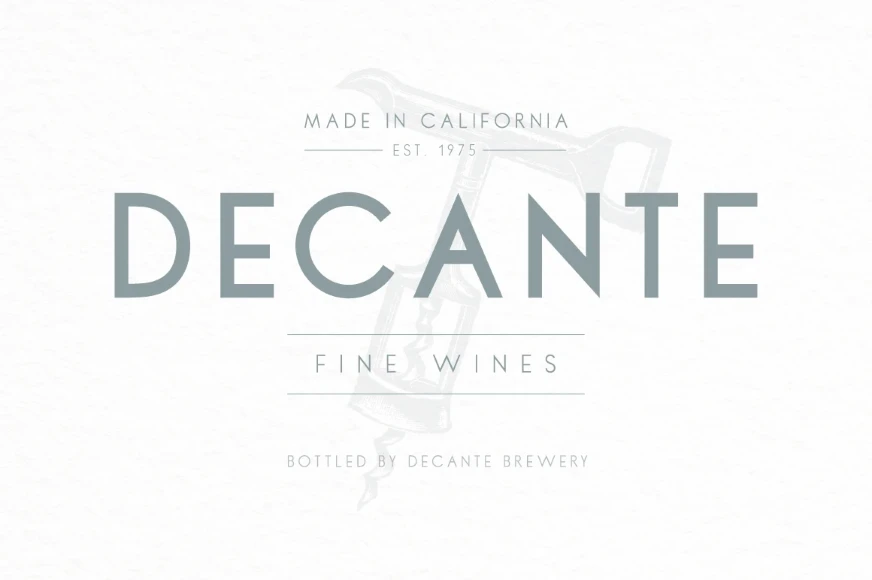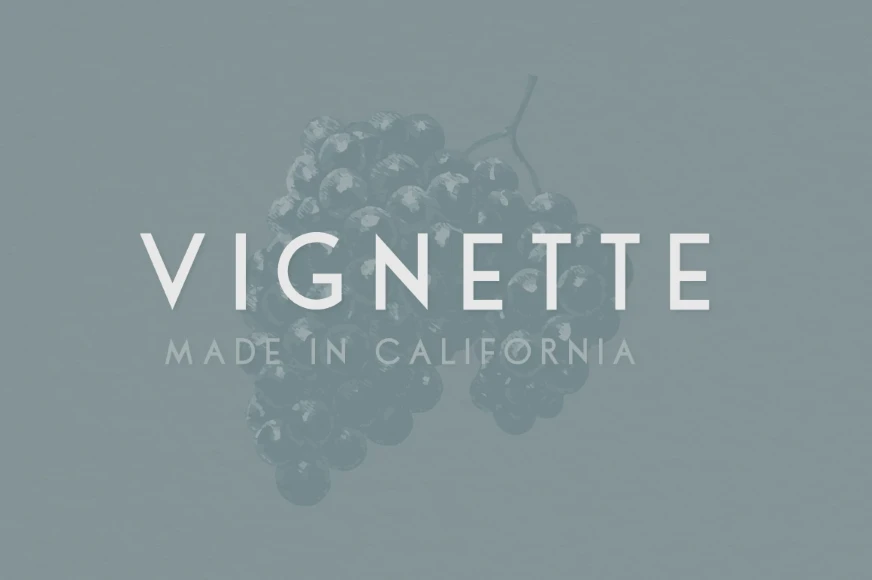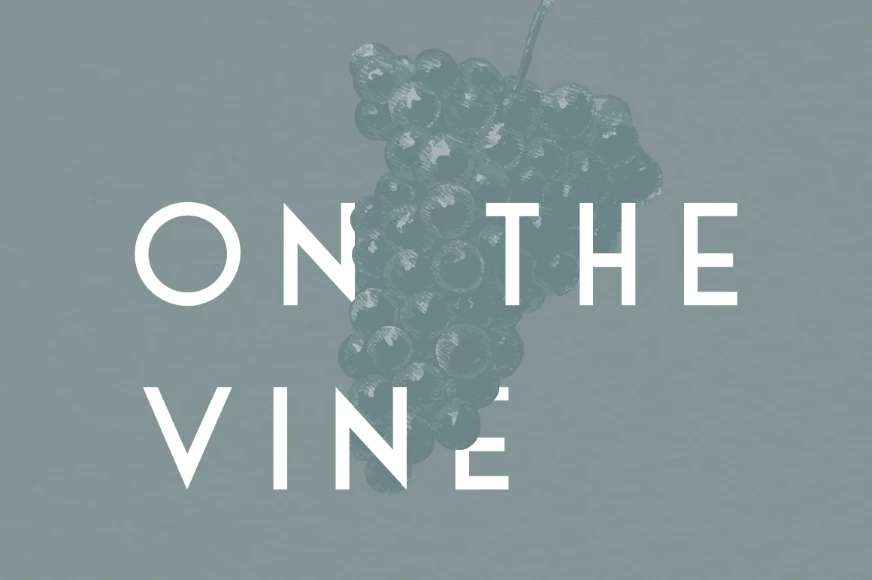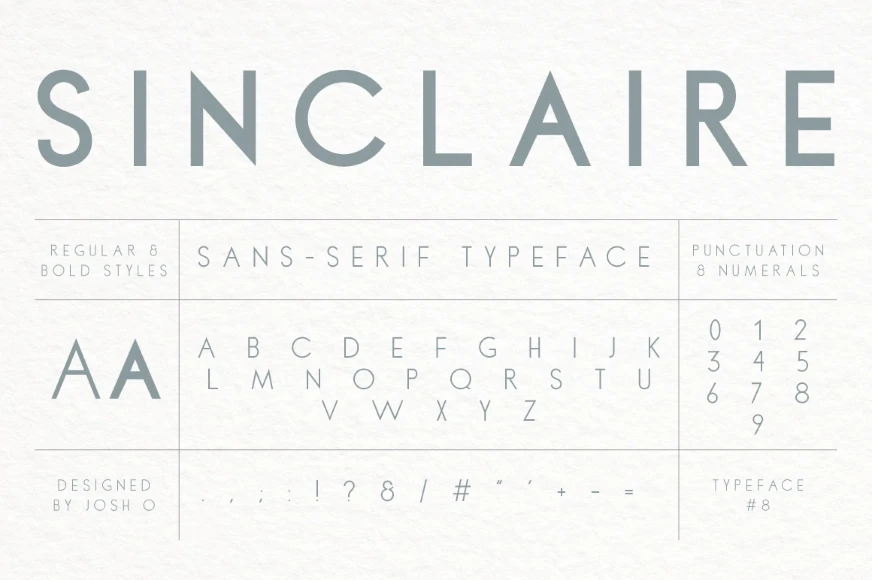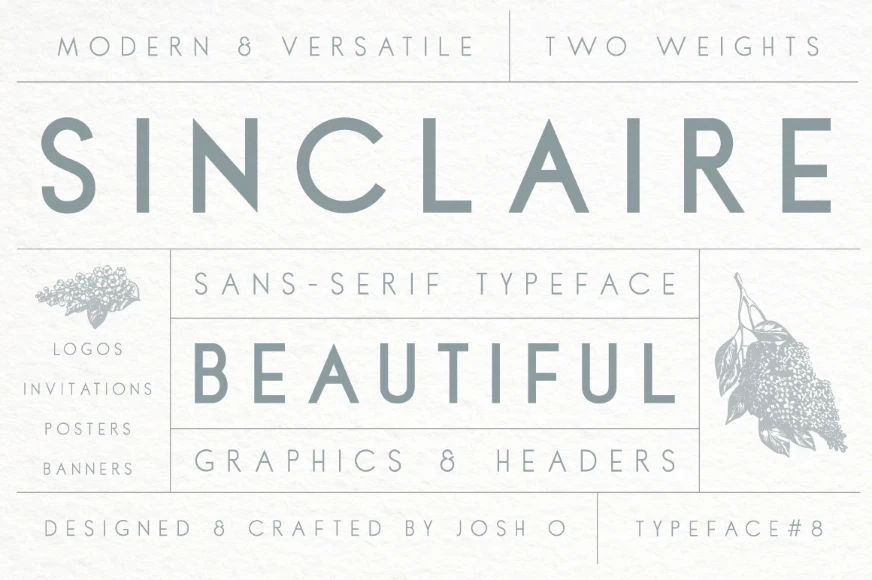
Sinclaire
By Josh Ownby
Sinclaire Bold
Sinclaire Regular
Sinclaire is an all-caps geometric sans serif with classic proportions. With charming Art Deco confidence, it pairs nicely with vintage illustrations and floral graphics. The versatility of Sinclaire means the opportunities are endless: create beautiful logos, wedding invitations, film titles, event graphics, book covers, vintage graphics, magazine headlines, or any project needing a touch of class.